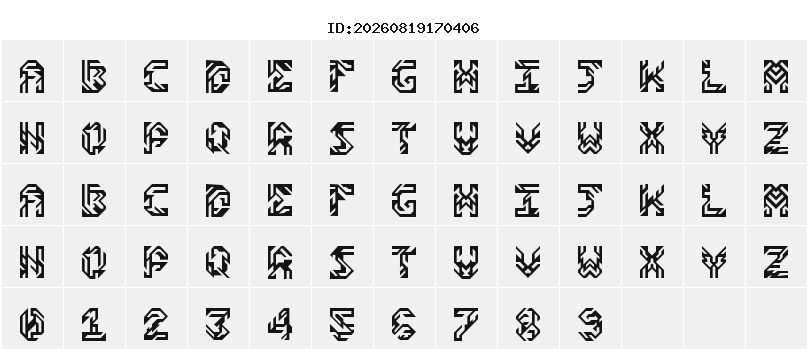
Sides Preview
• Font Name: Sides
• Full Font Name: Sides
About Sides.ttf
Sides.ttf is a modern, elegant sans-serif font designed for ultimate readability and visual harmony. Perfect for branding, headlines, web design, and print materials.